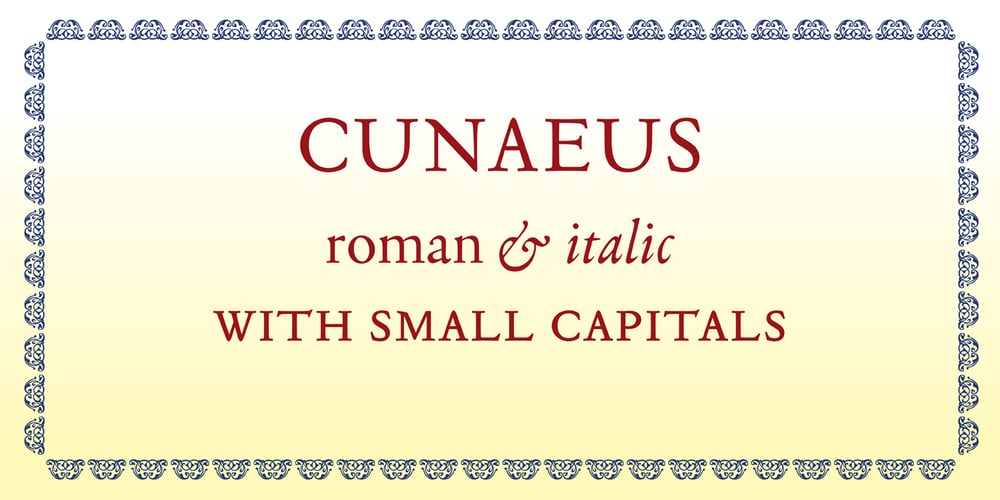
Cunaeus Font Family was designed by George Tulloch and published by George Tulloch. Cunaeus contains 2 styles and family package options. Cunaeus is intended primarily for use in running text. It brings together the types of two renowned sixteenth-century punchcutters: the roman is an interpretation of a pica font cut by Ameet Tavernier (c.1522–1570), and the italic that of a pica font of Robert Granjon (1513–1589/90). Granjon’s italics have inspired a number of revivals in the past, but usually of his more slanted styles; the present digitization features the lesser slant of his so-called ‘droit’ style typical of the mid 1560s. Cunaeus provides wide support for west, central, and east European languages that use the roman alphabet. Among its OpenType features are ligatures, small caps, several sets of numerals, contextual alternates, intelligent implementation of long ‘s’, and fractions. For more detail, please see the pdf available in the Gallery.